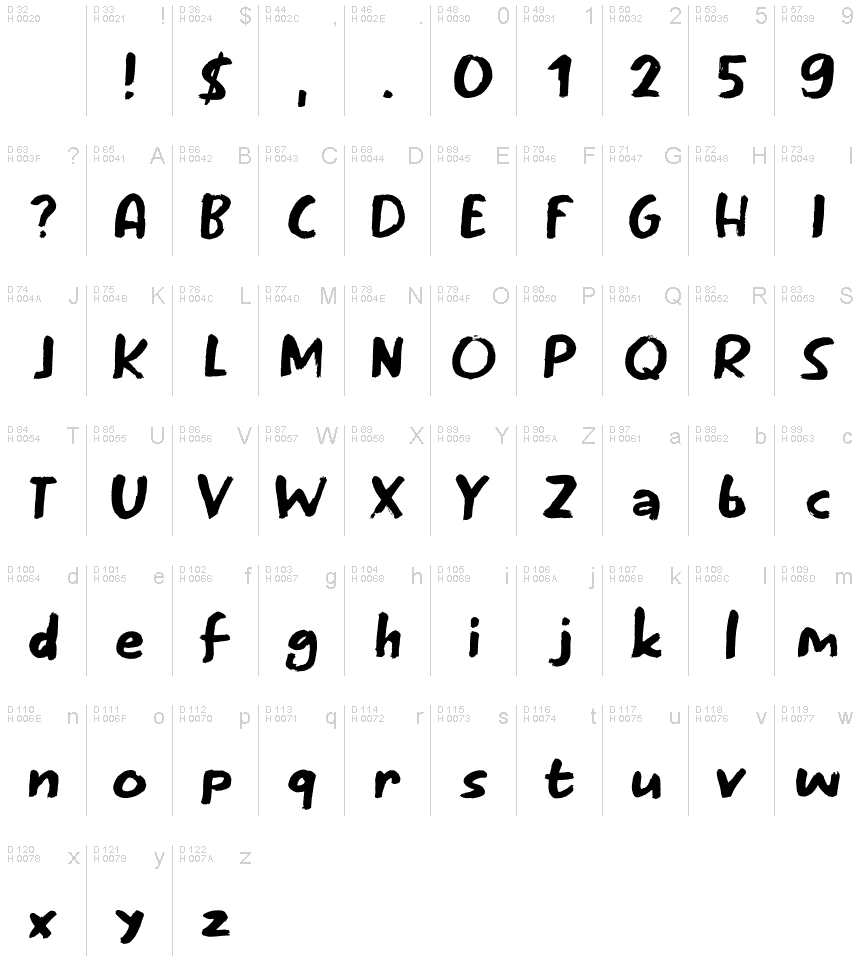
Bargain Hunter DEMO Regular
Bargain Hunter by Hanoded is a bold and expressive brush font that's perfect for projects looking to make a statement. With its semi-expanded width, it's ideal for creating eye-catching headlines, stylish logos, and captivating packaging designs. Whether you're working on a fashion brand, a food product, or an event poster, this versatile typeface will add a touch of personality and flair to your project. Its thick brush strokes create an energetic and dynamic feel that's sure to grab attention. Embrace the boldness of Bargain Hunter and elevate your designs to the next level!